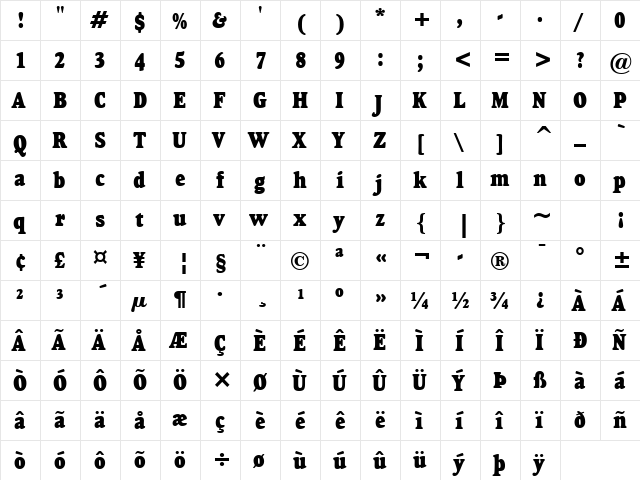
GoudyHvyface Cn BT Regular Font Preview
GoudyHvyface Cn BT Regular
Design Context for GoudyHvyface Cn BT Typeface
GoudyHvyface Cn BT takes a measured approach to typography — its balanced proportions and neutral character make it a reliable workhorse for both digital and print work.